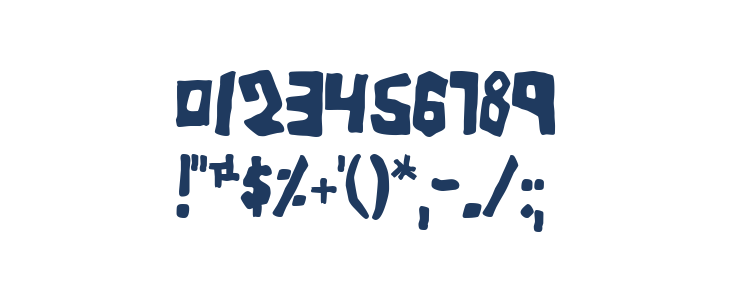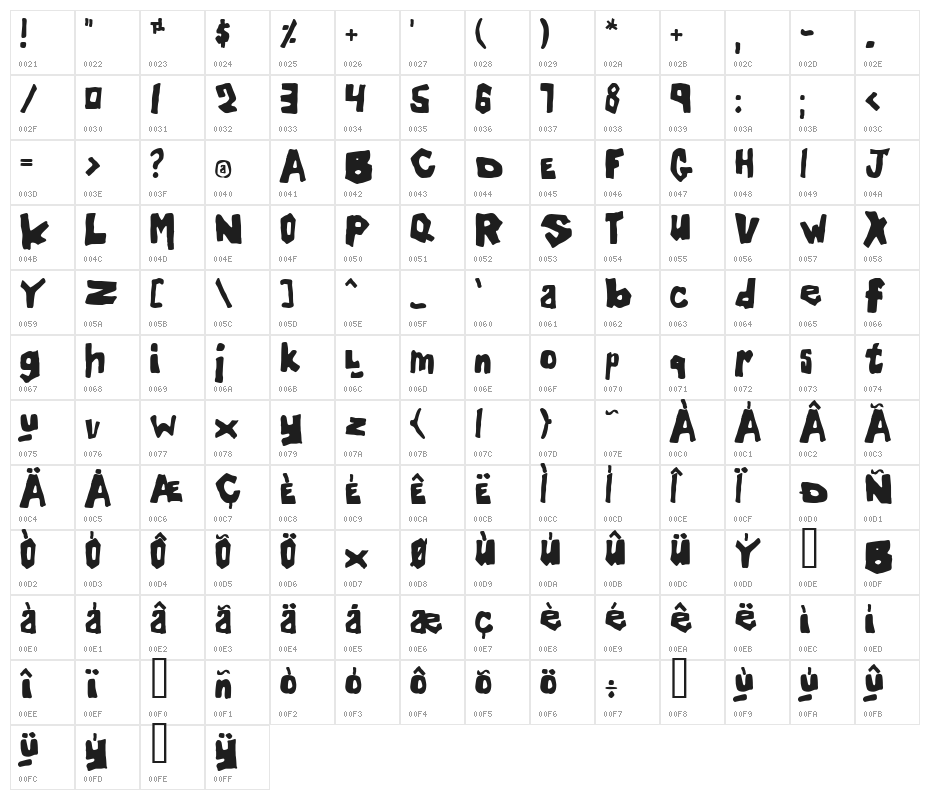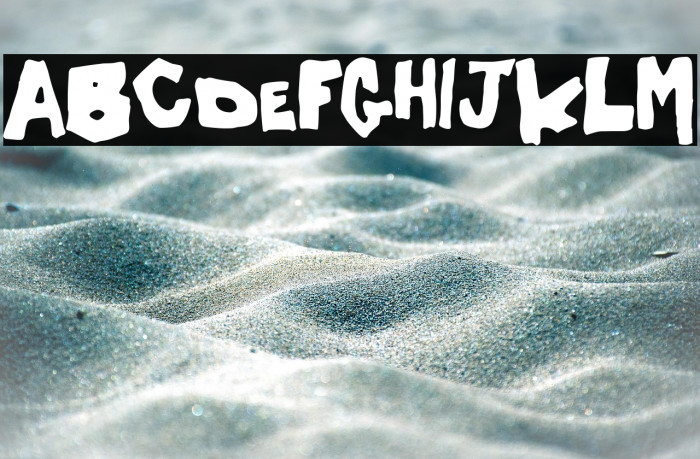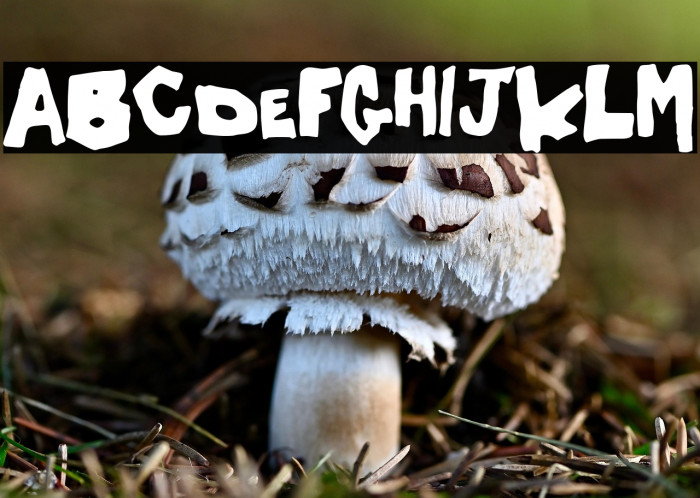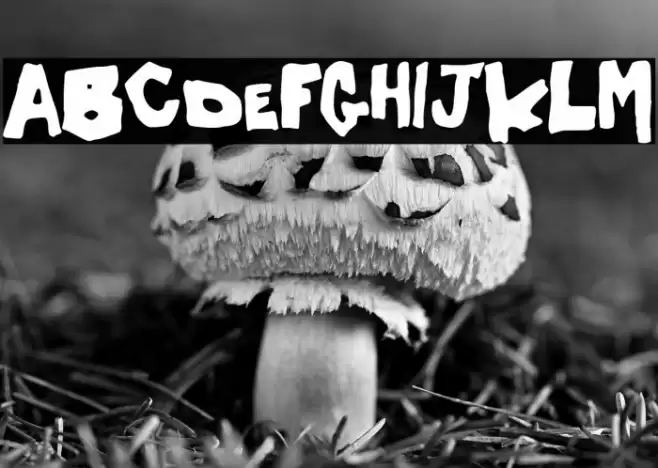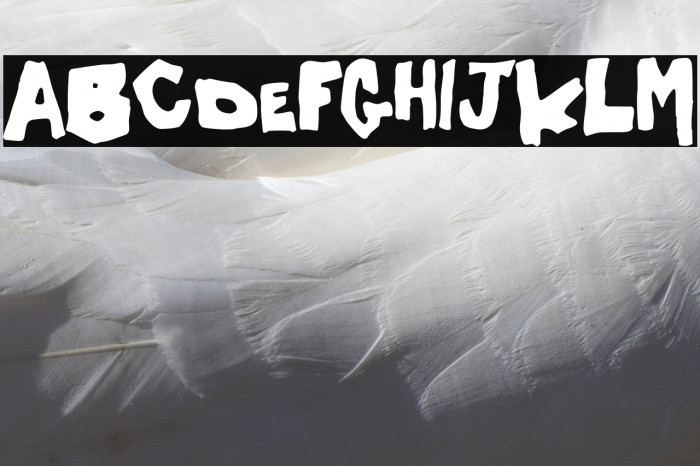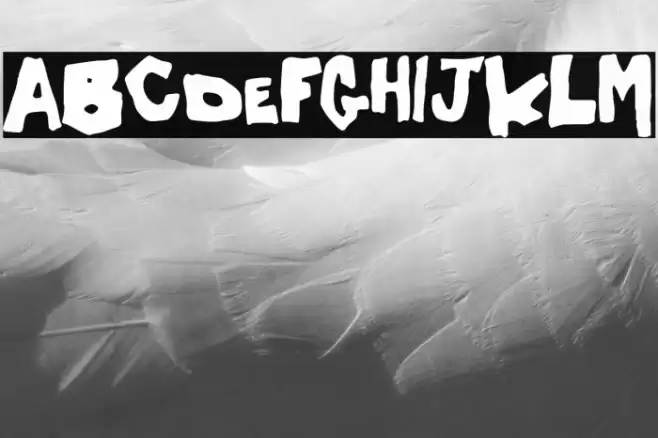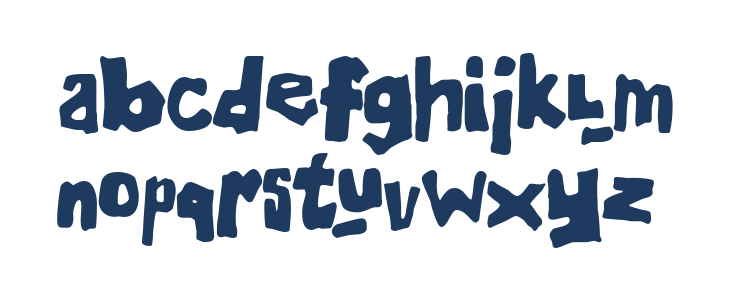
Orgy Font
Orgy Description
This font features a bold and playful design with irregular, chunky letterforms that give it a hand-drawn, organic feel. The characters are heavily stylized with uneven edges and varying stroke thickness, creating a lively and dynamic appearance. The uppercase and lowercase letters maintain a consistent style, while the numerals and special characters follow suit with the same whimsical aesthetic. This font exudes a sense of fun and creativity, making it ideal for projects that require a bold and unconventional look.
| Overall Style | Playful, Creative |
| Use Case | Headlines, Posters, Creative projects |
| Proposed Projects | Ideal for children's books, playful branding, posters, and creative design projects. |